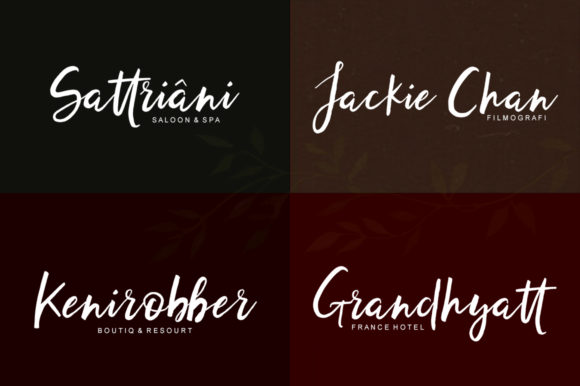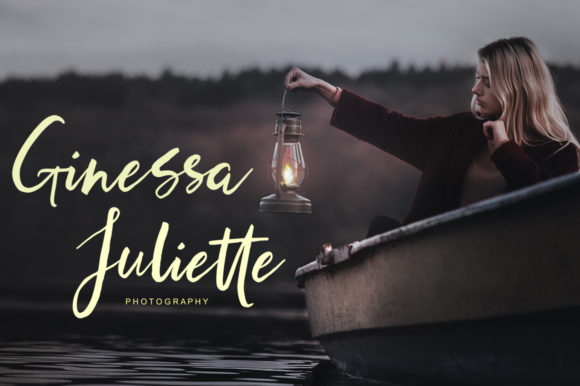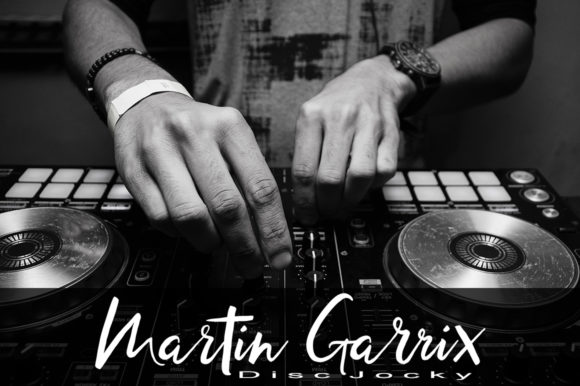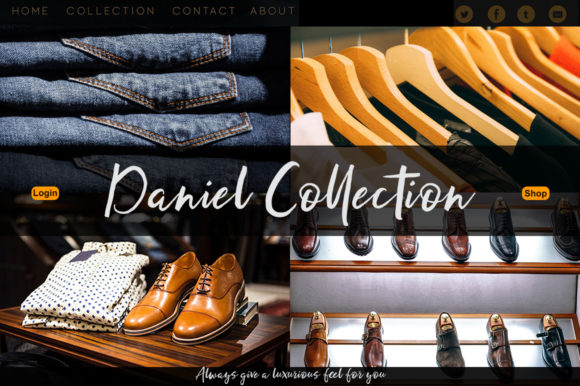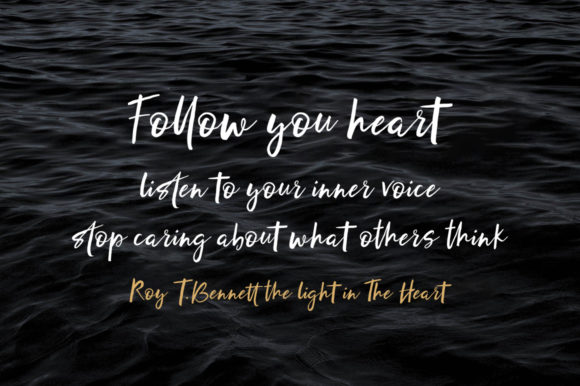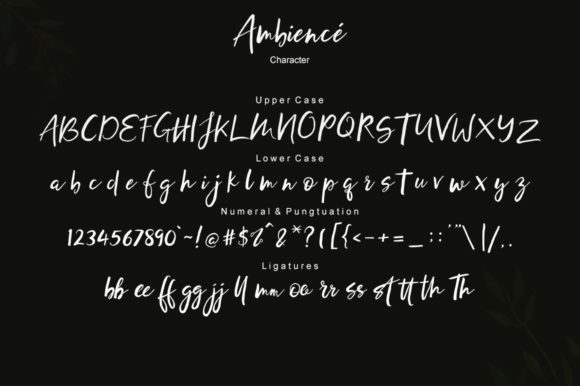
Introducing Ambience Font: Elevate Your Designs with Elegant Script
Are you looking for a font that can add a touch of sophistication and drama to your designs? Look no further than Ambience Font. This stunning script font features smooth curves and dramatic lettering, making it perfect for designers and crafters who want to create authentic and visually appealing designs.
What is Ambience Font?
Ambience Font is a beautiful script font that is designed to add an elegant touch to any design project. Its smooth curves and flowing lines create a sense of movement and fluidity, making it perfect for designs that require a high level of sophistication. Whether you’re working on a branding project, a wedding invitation, or a craft project, Ambience Font is sure to impress.
Key Features of Ambience Font
- Smooth Curves: Ambience Font features smooth, flowing curves that give it a elegant and sophisticated feel.
- Dramatic Lettering: The font’s dramatic lettering makes it perfect for designs that require a high level of drama and flair.
- Authentic Touch: Ambience Font is designed to add an authentic touch to any design project, making it perfect for designers and crafters who want to create unique and visually appealing designs.
- Versatile: Ambience Font is a versatile font that can be used for a wide range of design projects, from branding and advertising to wedding invitations and craft projects.
How to Use Ambience Font
Ambience Font is easy to use and can be incorporated into a wide range of design projects. Here are a few ideas to get you started:
- Branding and Advertising: Use Ambience Font to create elegant and sophisticated branding and advertising materials, such as logos, business cards, and brochures.
- Wedding Invitations: Add a touch of elegance and sophistication to your wedding invitations with Ambience Font.
- Craft Projects: Use Ambience Font to add a personal touch to your craft projects, such as handmade cards, scrapbooking, and DIY home decor.
- Digital Designs: Ambience Font can also be used for digital designs, such as social media graphics, blog headers, and website designs.
Benefits of Using Ambience Font
There are many benefits to using Ambience Font in your design projects. Here are a few:
- Elegant and Sophisticated: Ambience Font adds an elegant and sophisticated touch to any design project, making it perfect for designers and crafters who want to create high-end designs.
- Unique and Authentic: Ambience Font is designed to add an authentic touch to any design project, making it perfect for designers and crafters who want to create unique and visually appealing designs.
- Versatile: Ambience Font is a versatile font that can be used for a wide range of design projects, making it a great addition to any designer’s or crafter’s toolkit.
- Easy to Use: Ambience Font is easy to use and can be incorporated into a wide range of design projects, making it perfect for designers and crafters of all skill levels.
| Font Name | Ambience Font |
| Author | Bal Studio |
In conclusion, Ambience Font is a stunning script font that features smooth curves and dramatic lettering. Its elegant and sophisticated feel makes it perfect for designers and crafters who want to add an authentic touch to any design project. With its versatility, ease of use, and range of benefits, Ambience Font is a great addition to any designer’s or crafter’s toolkit. So why wait? Download Ambience Font today and start creating beautiful, elegant designs that will impress and inspire.